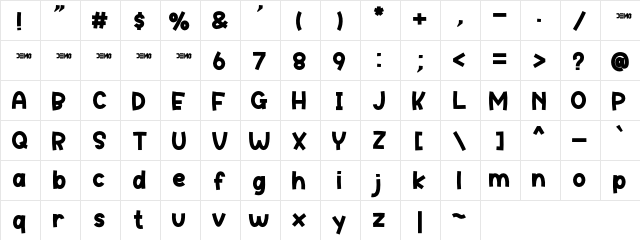
Baby's Dream Book Font Preview
Baby's Dream Book
Baby's Dream Book Font Details
| Style | Book |
| Designer | M Pria Admaja |
Design Context for Baby's Dream Typeface
Baby's Dream is a composed and adaptable typeface that performs quietly and consistently across a wide range of design contexts.